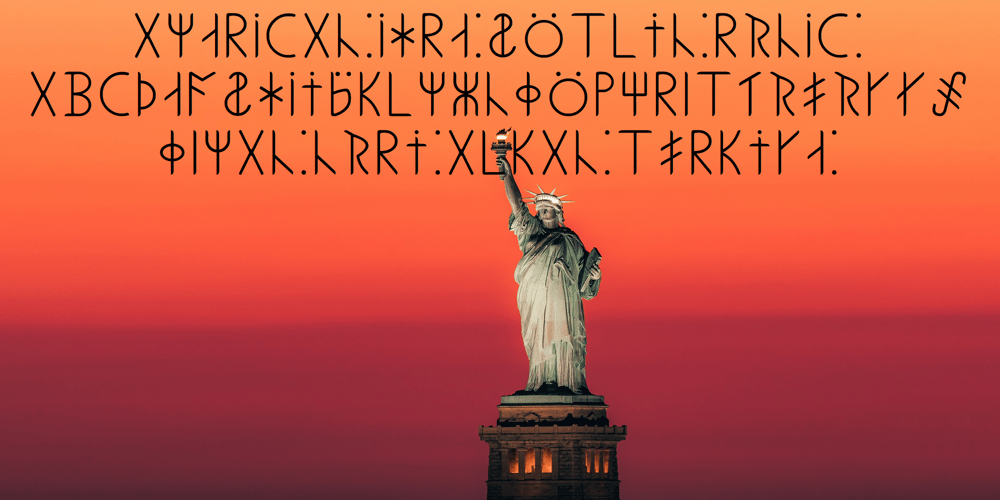
Ongunkan Ihre Gotlin Runic
Ongunkan Ihre Gotlin Runic font
Ongunkan Ihre Gotlin Runic Font Family was designed by Osman Nuri ALKAN and published by Runic World Tamgacı. Ongunkan Ihre Gotlin Runic contains 1 styles and family package options. The Ihre-Götlin Runic inscription is one of the other runic inscriptions in America. I couldn’t find much data on it.